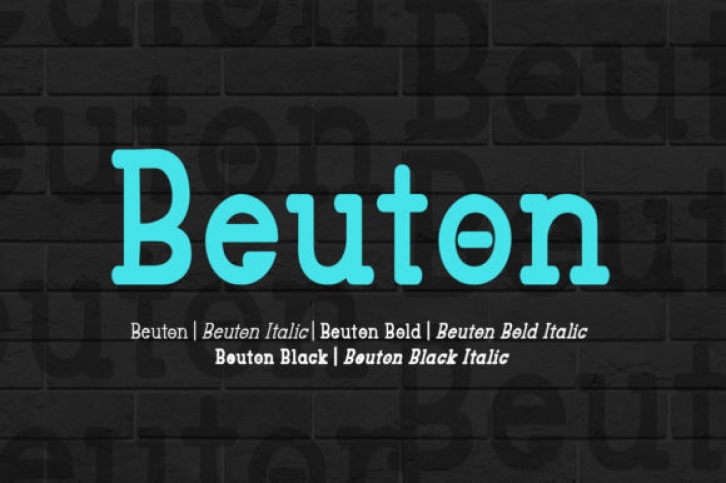
The Beuton family contains a beautiful and bold sans serif font. Wit its contemporary feel and unique charm, Beuton will turn any design idea into a true stand out.